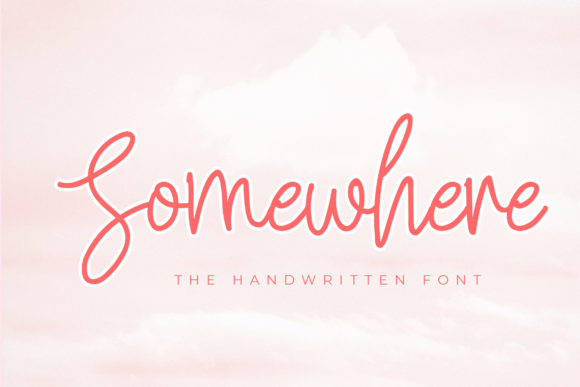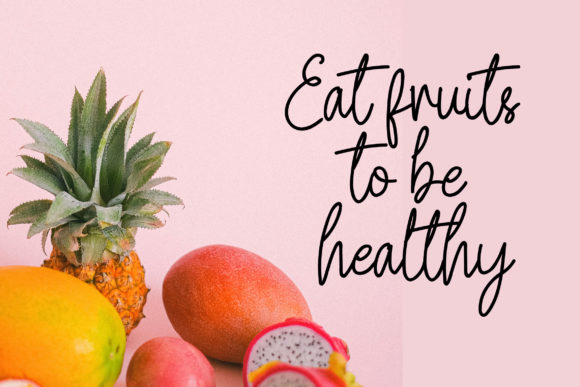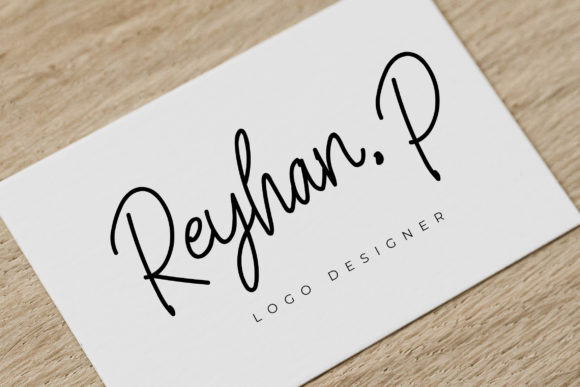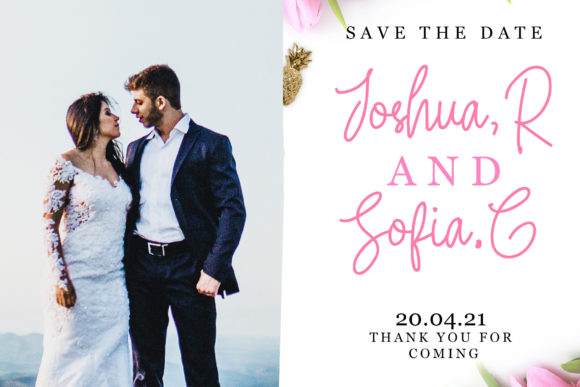
About Somewhere Font
Somewhere is a chic, whimsical script font, with a relaxed theme, featuring a lovely style. Its stylish alternates and ligatures make this font the perfect match for any project.